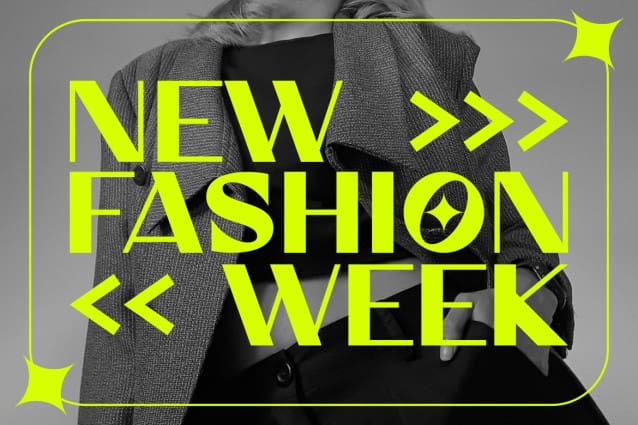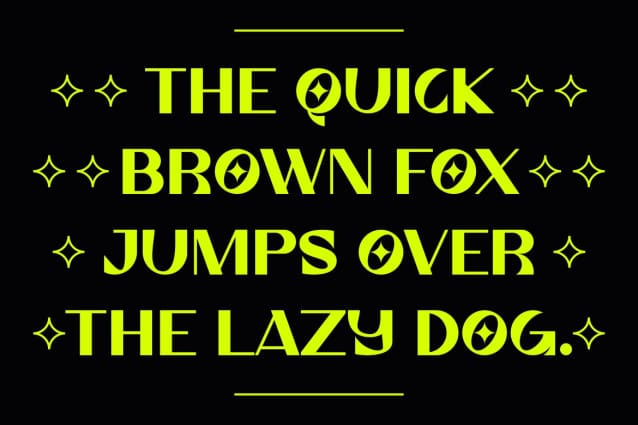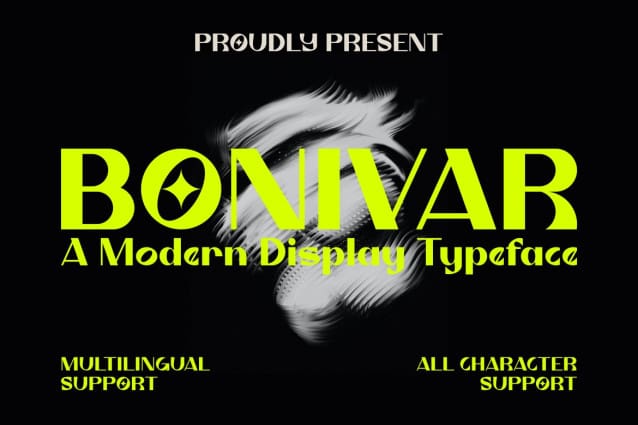
Bonivar Font
Bonivar Font – Modern Font is a bold and authentic display font. The font is suitable for all branding projects such as Logo, template design, products and many more. It looks outstanding in a wide range of contexts